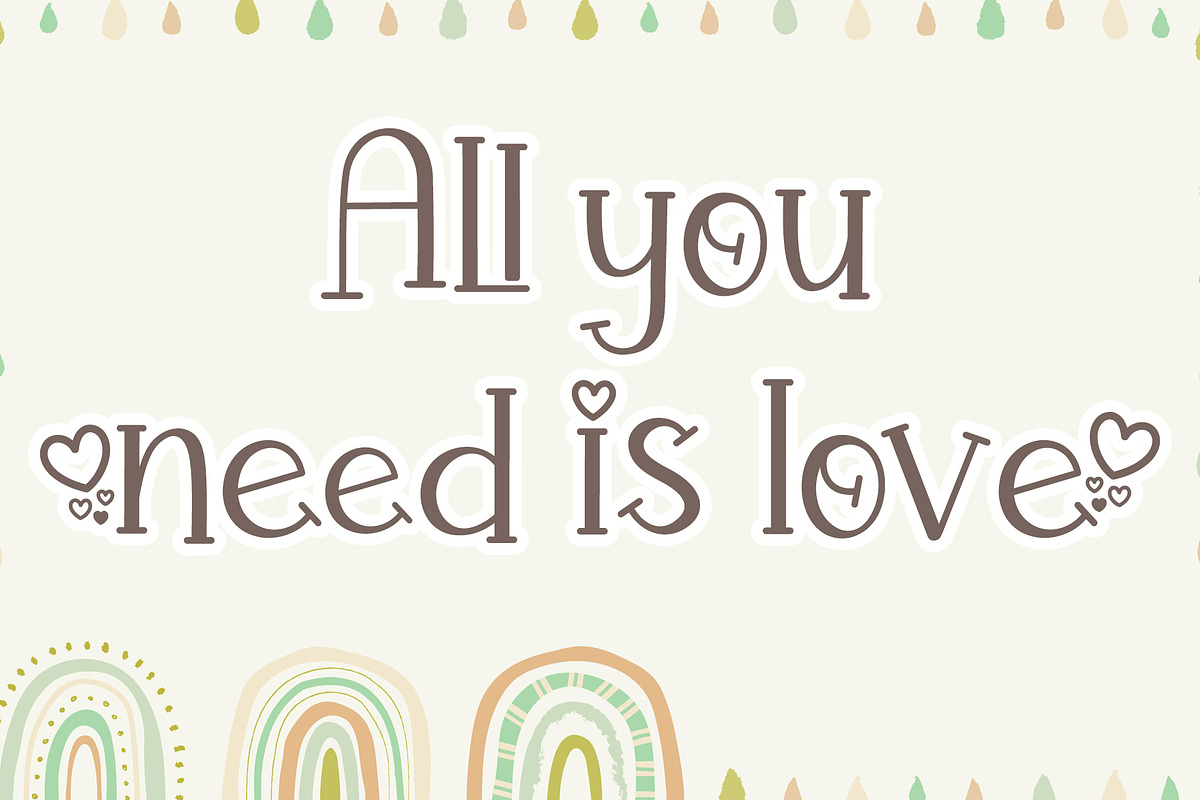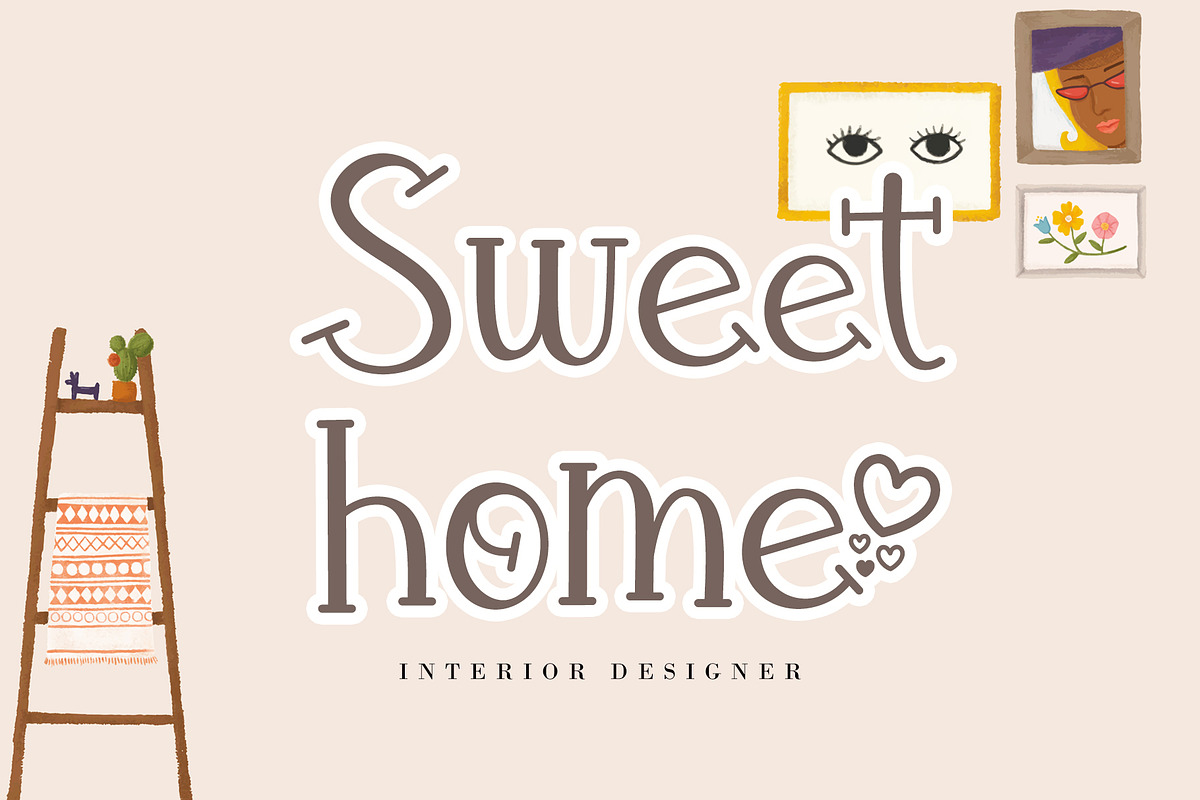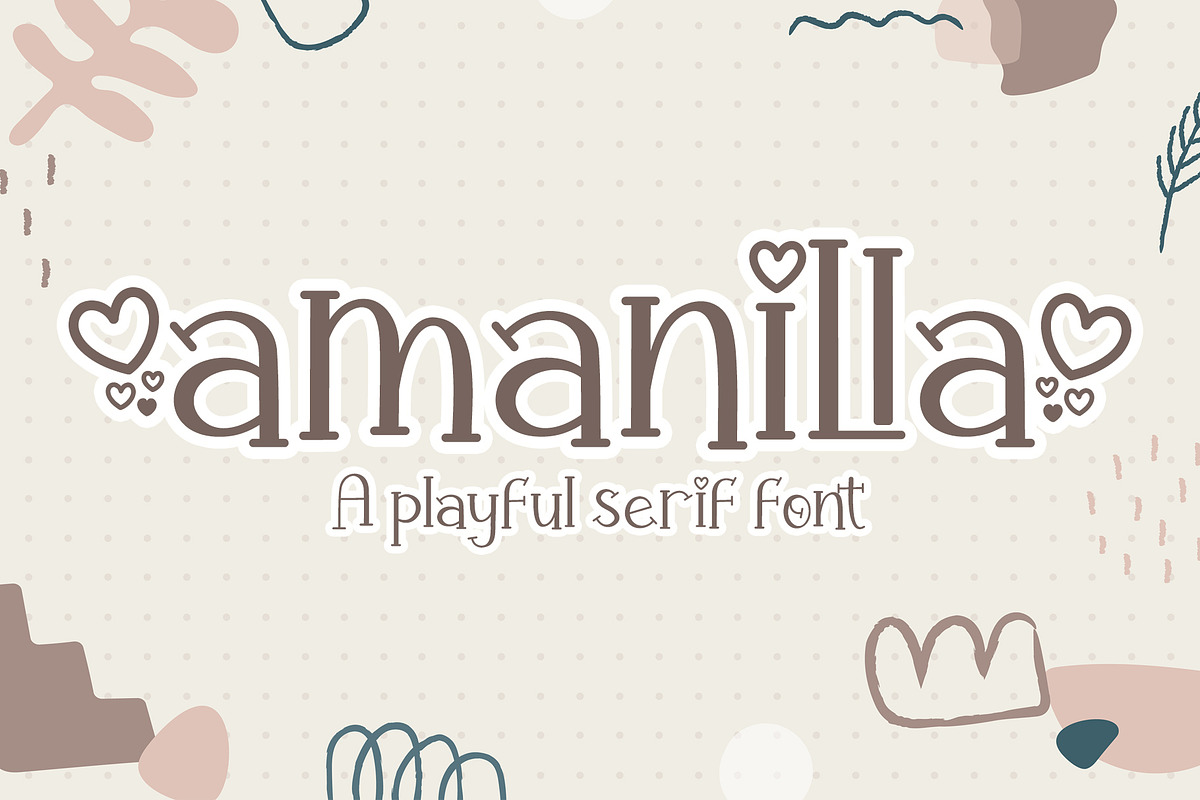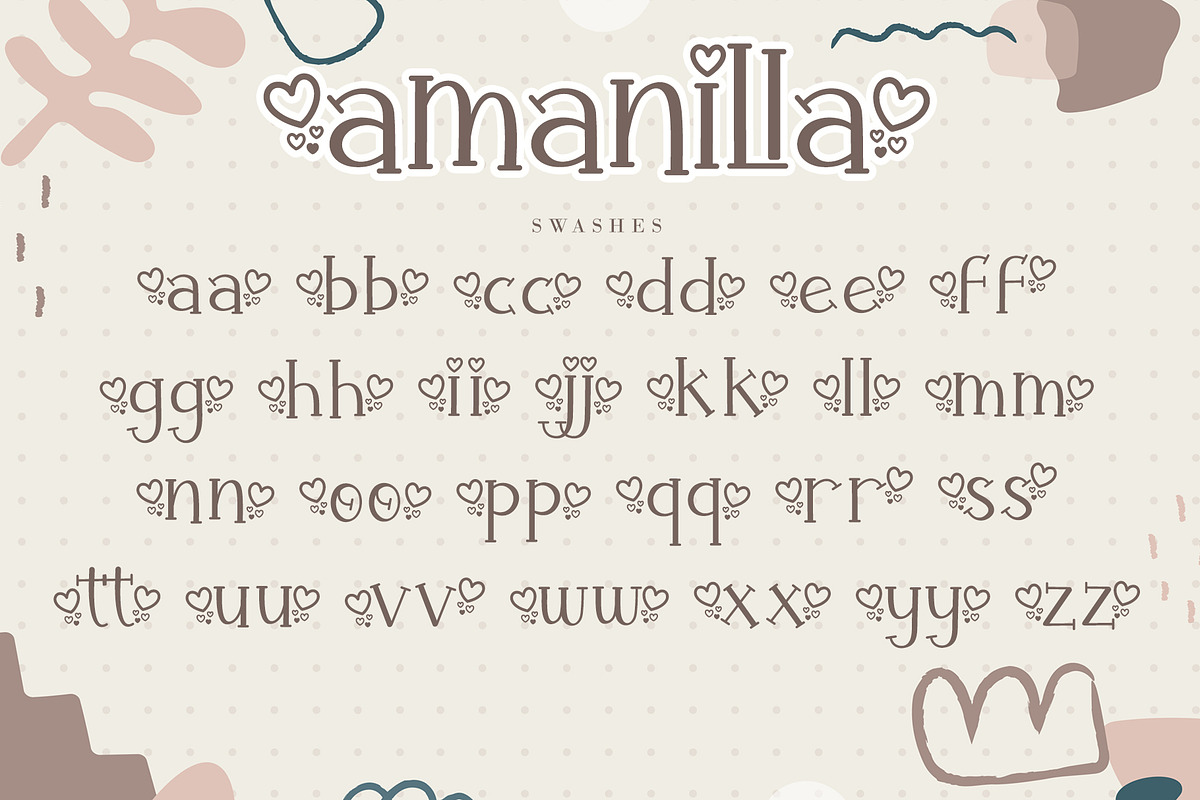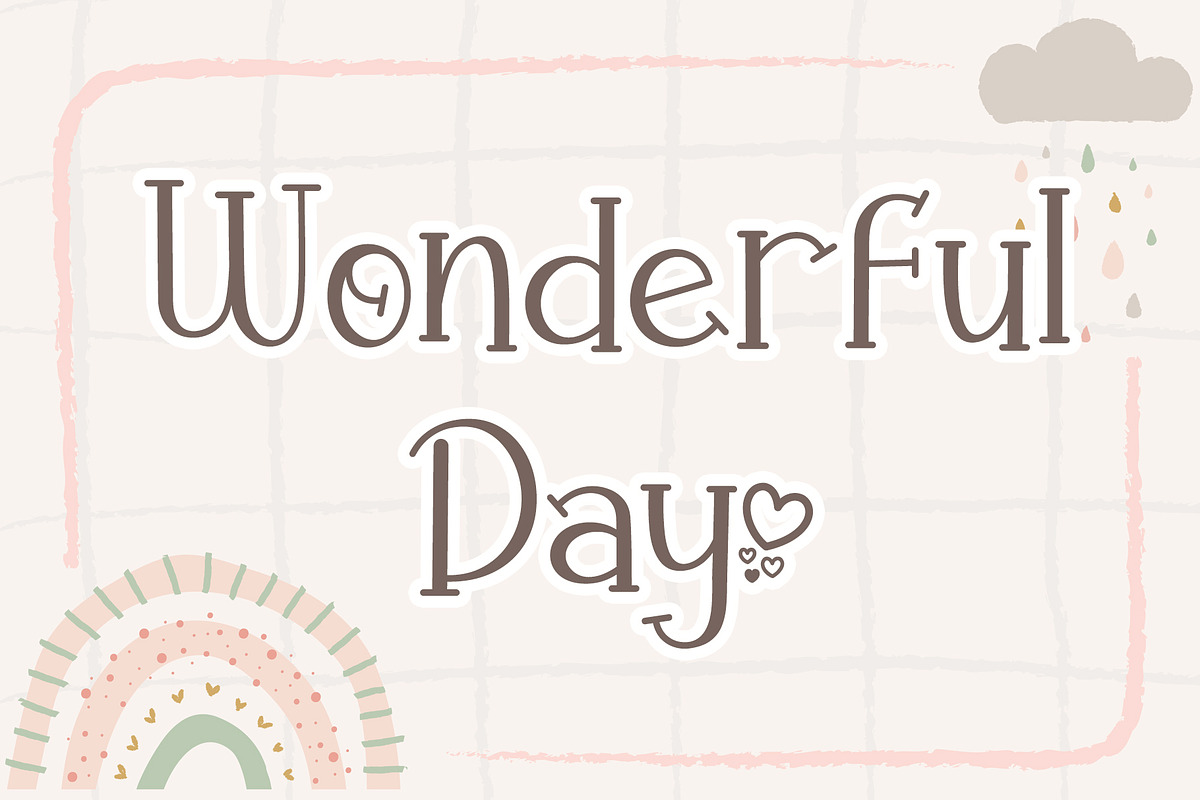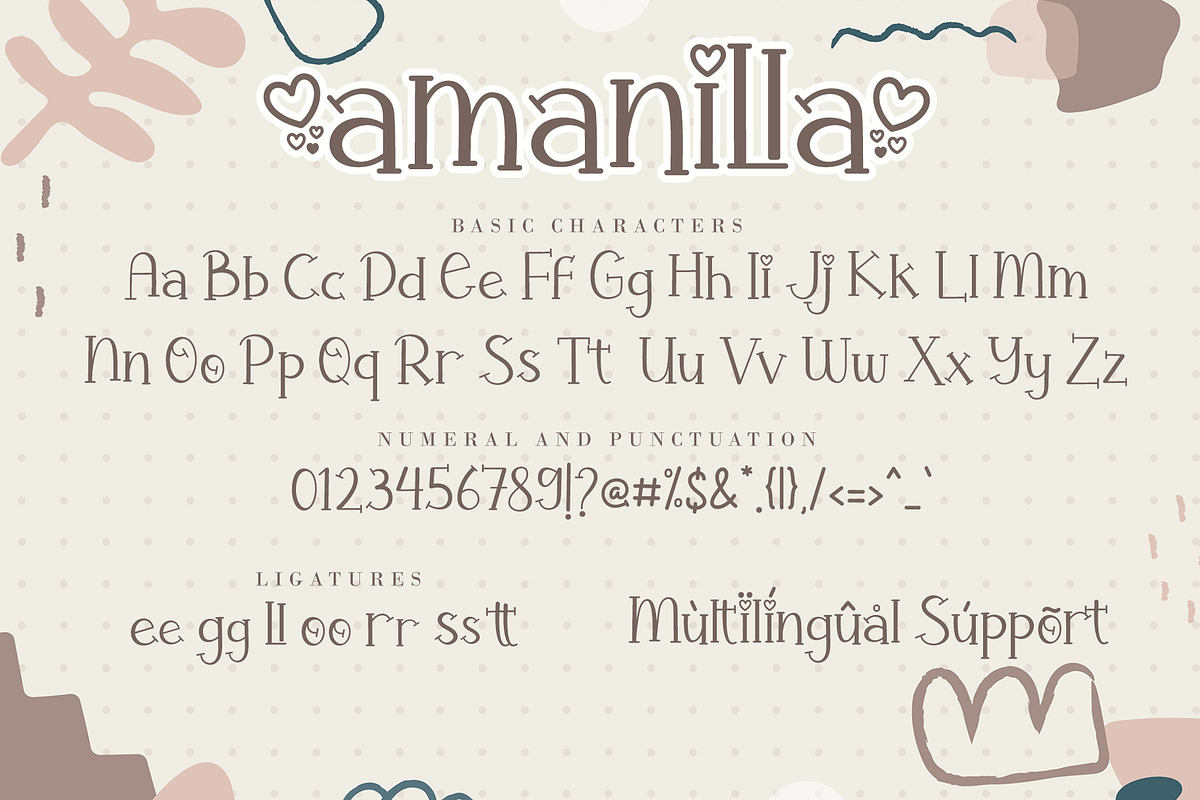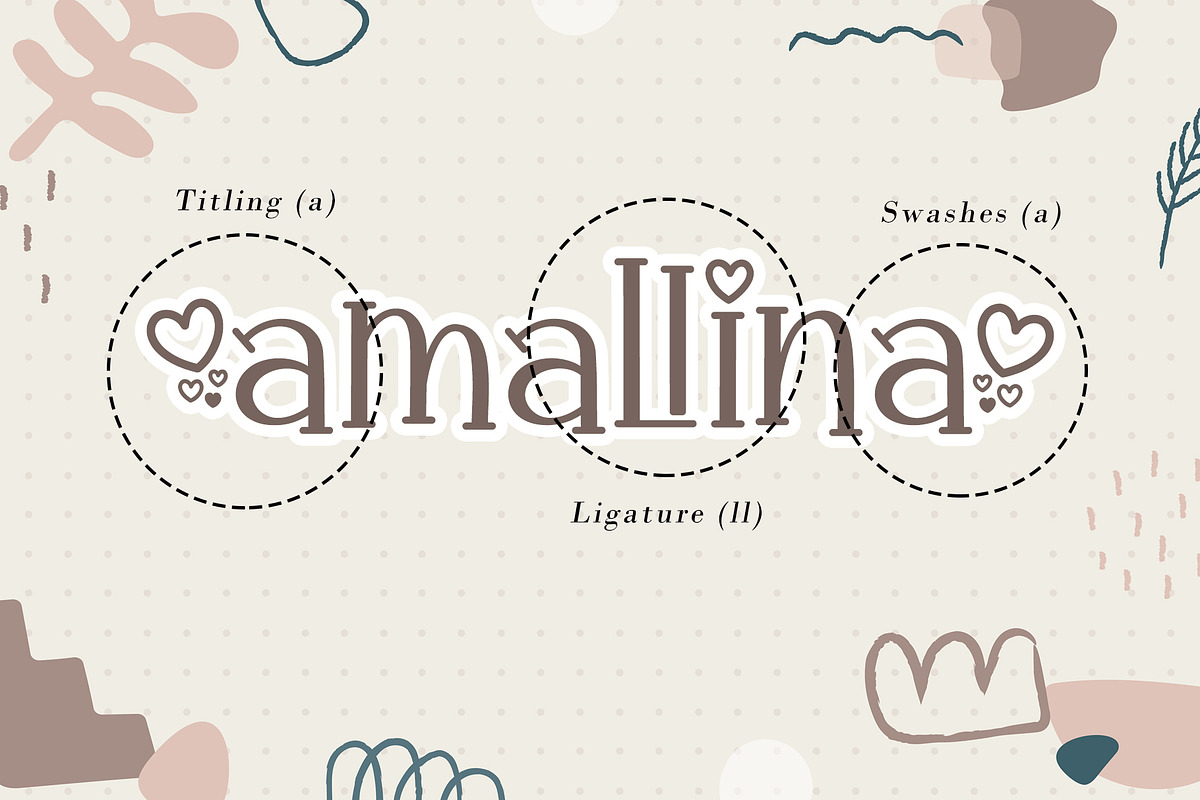
Amanilla
Amanilla is a romantic and sweet serif font. No matter the topic, this font will be an incredible asset to your fonts’ library, as it has the potential to elevate any creation.
(a-z) swashes, (a-z) titling, ligatures Support multilingual; ä ö ü Ä Ö Ü ß ¿ ¡ This font is PUA encoded which means you can access all of the playful glyphs, swashes, and ligatures with ease! Please kindly message us for any questions or issues about our product. Thank you for your purchase and have a wonderful day!